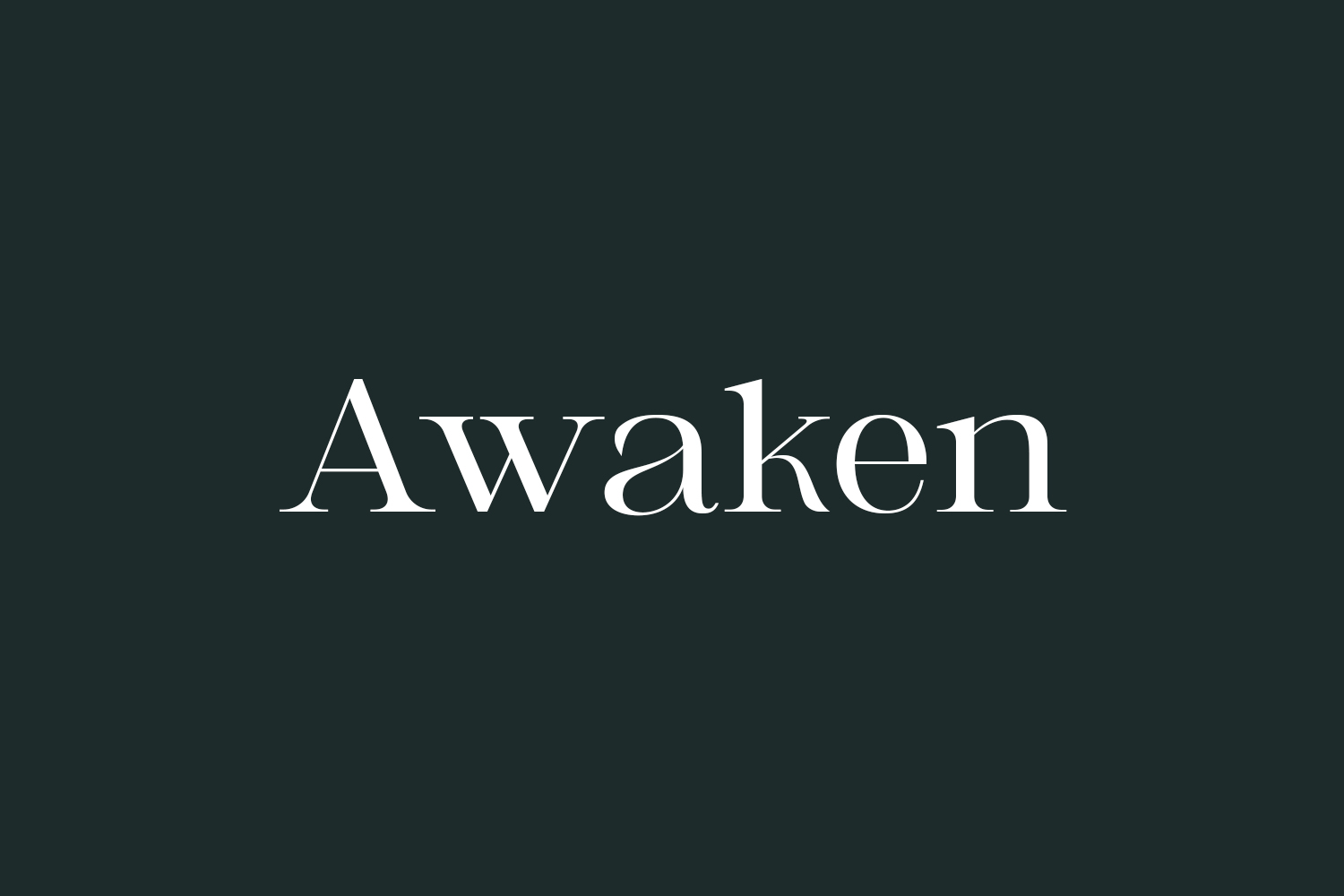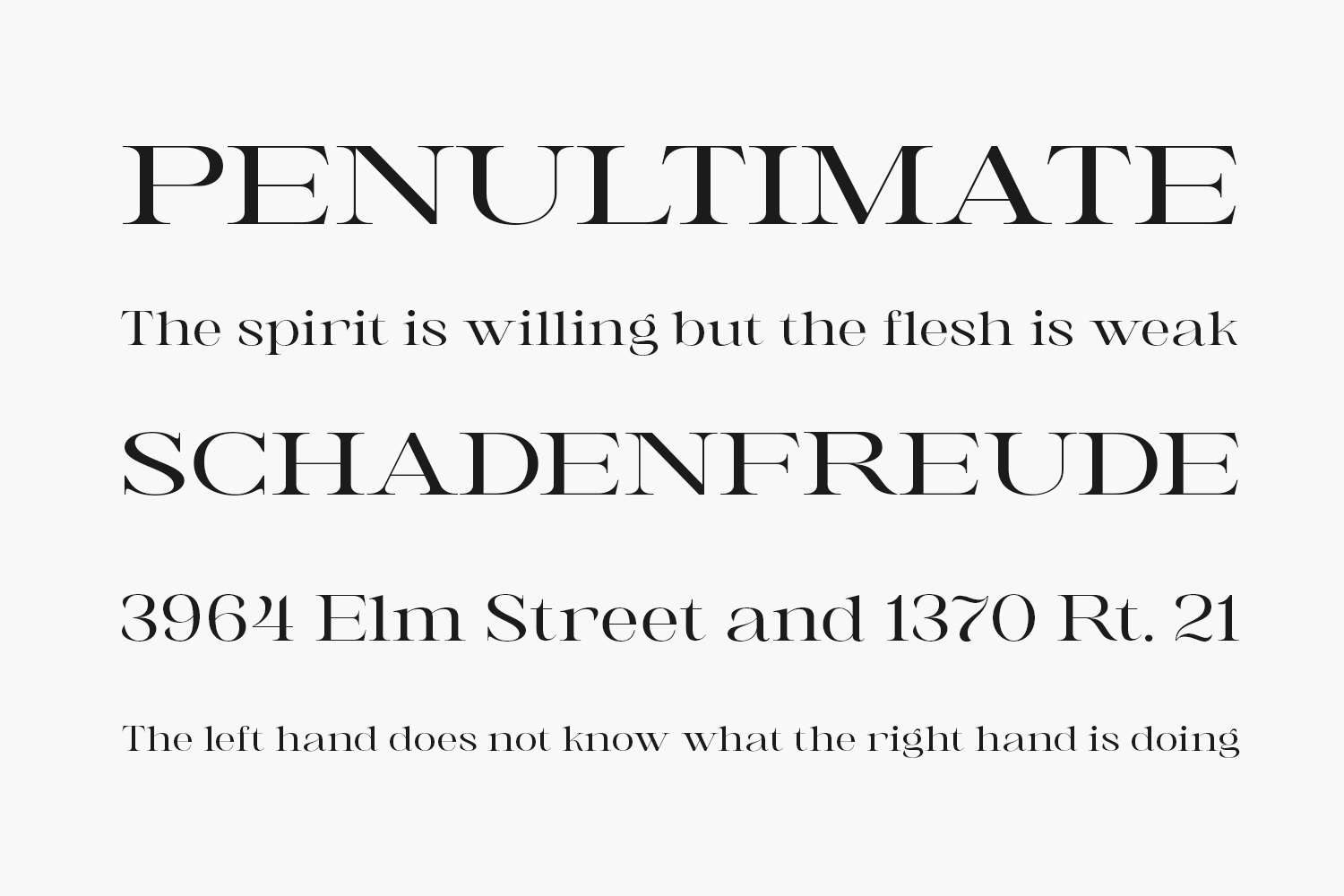
Awaken Free Font is an assertive yet distinct serif font. Its elegance and simplicity make this font look absolutely fabulous on a variety of design ideas, both formal and informal. Awaken Free Font was designed by StringLabs and is free for personal use only. Please purchase the full version for commercial use.